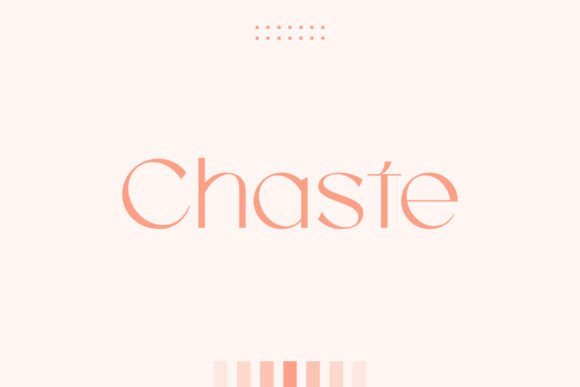
Discovering the Perfect Font: A Designer’s Quest
As I sat staring at my computer screen, trying to convey the essence of my brand through typography, I knew I needed something special. A font that would elevate my design and leave a lasting impression. That’s when I stumbled upon the Chaste Font – a stylish and elegant sans serif font that perfectly captured the essence of sophistication and uniqueness.
With its clean lines and sharp edges, the Chaste Font is a versatile tool that can be used for a wide range of applications, from branding and advertising to editorial and digital media. Its oval combinations give it a touch of sophistication, making it a valuable asset for designers looking to add a premium feel to their work.
Whether you’re a seasoned designer or just starting out, the Chaste Font is a valuable addition to your toolkit. Its unique style and elegance make it a standout choice for any project, and its adaptability ensures that it will continue to be a reliable partner for years to come.
Key Features of Chaste Font
- Font Family: Chaste Font is a sans-serif font family that includes multiple weights and styles.
- Unique Characteristics: Chaste Font features a clean and modern design with a subtle rounded edge, making it suitable for a wide range of applications, from corporate branding to digital interfaces.
Chaste Font Review
As a designer, I was excited to dive into the Chaste Font and see what it had to offer. Overall, I was pleased with the results.
- The Chaste Font has a unique, elegant feel to it that makes it perfect for high-end branding and luxury designs.
- The font is highly legible, even at smaller sizes, making it a great choice for body text.
- The Chaste Font is highly versatile and can be used in a variety of contexts, from print to digital designs.
- The Chaste Font may not be the best choice for more casual or playful designs, as it can come across as a bit too formal.
- The font may not include as many language support options as some other fonts on the market, which could be a limitation for designers working on multilingual projects.
The Chaste Font is a solid choice for designers looking for a high-end, elegant font option. While it may have some limitations, it’s a great choice for luxury branding, corporate designs, and other high-end projects. With its unique feel and high legibility, it’s definitely worth considering for your next design project.
Tip: Use the Chaste Font for titles and headings to create a clean and elegant look.
Tip: Use the Chaste Font in conjunction with other elegant fonts to create a sophisticated look.
Tip: Use the Chaste Font for titles and headings to create a clean and professional look.
The Chaste Font is ideal for:
- Wedding and event design
Alternatives to Chaste Font for Designers
Lato is a sans-serif font designed by Łukasz Dziedzic. It’s a clean and modern font, perfect for use in web design, logos, and print materials. Lato is more versatile than Chaste Font, with a wider range of weights and styles available. It’s ideal for use in headings and body text where a clean and neutral font is required.
Open Sans is a sans-serif font designed by Steve Matteson. It’s a highly readable font that’s perfect for use in digital products, such as websites and mobile apps. Open Sans is more legible than Chaste Font, with a more even spacing between letters. It’s ideal for use in body text where readability is crucial.
Montserat is a sans-serif font designed by Julieta Ulanovsky. It’s a geometric font with a urban feel, perfect for use in logos, branding, and digital products. Montserrat is more dramatic than Chaste Font, with a more distinctive character set. It’s ideal for use in headings and titles where a bold and eye-catching font is required.